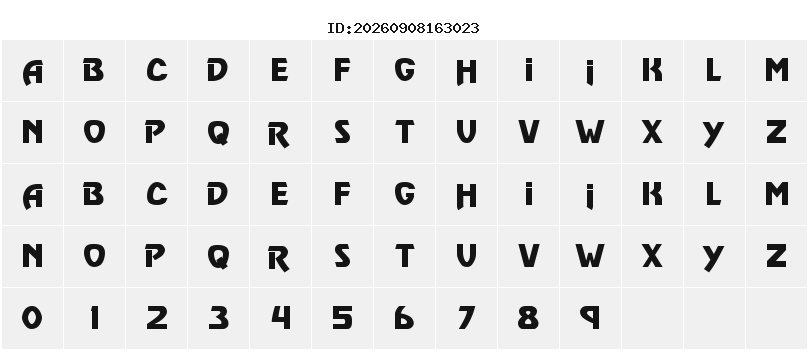
Vulgar Display Preview
• Font Name: Vulgar Display
• Full Font Name: Vulgar Display Regular
• Designer: Digital Graphic Labs
• Manufacturer: Digital Graphic Labs
• Description: No truth in advertising here! V/D is a display face, but is far from vulgar.
About Vulgar Display.ttf
Vulgar Display.ttf is a modern, elegant sans-serif font designed for ultimate readability and visual harmony. Perfect for branding, headlines, web design, and print materials.